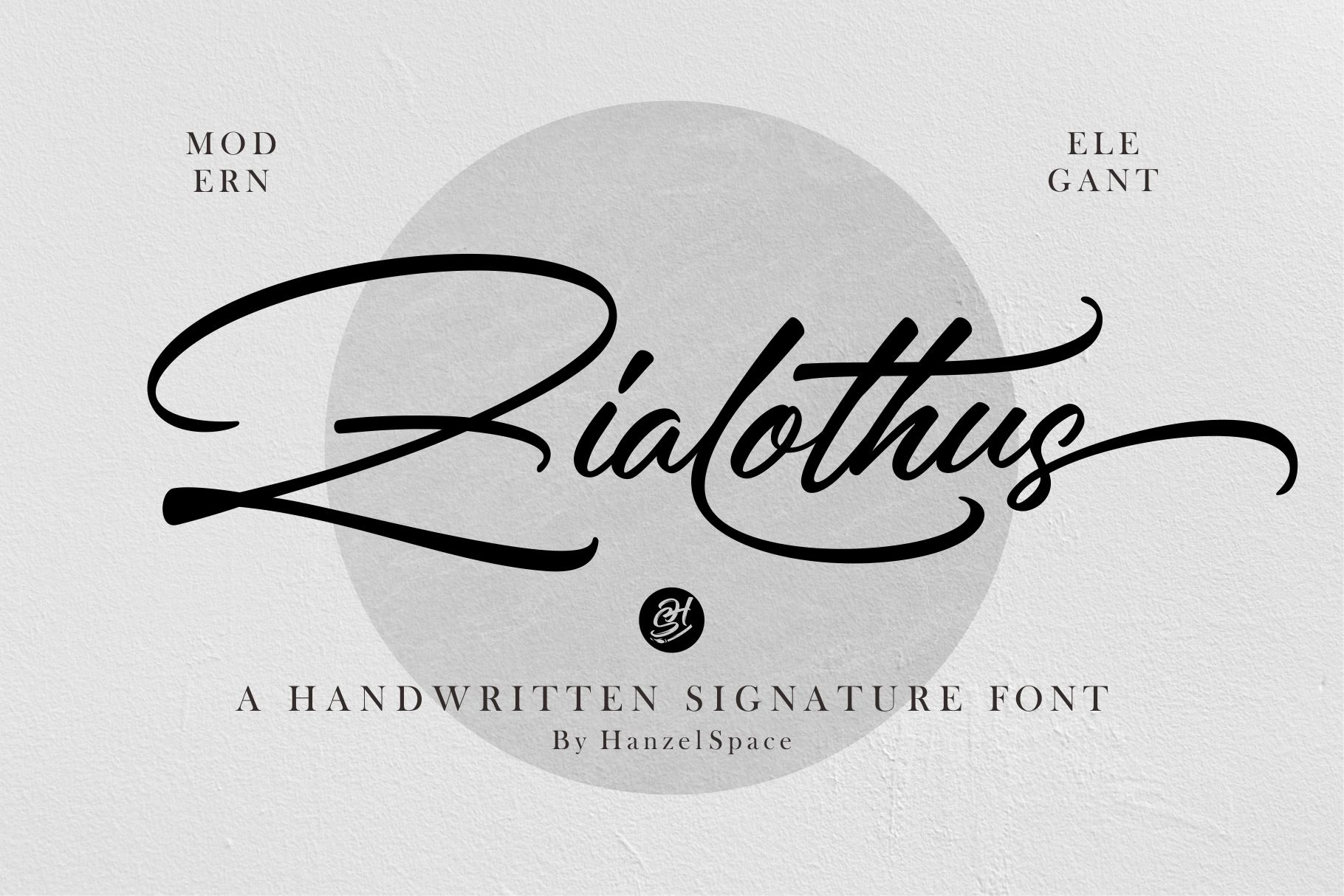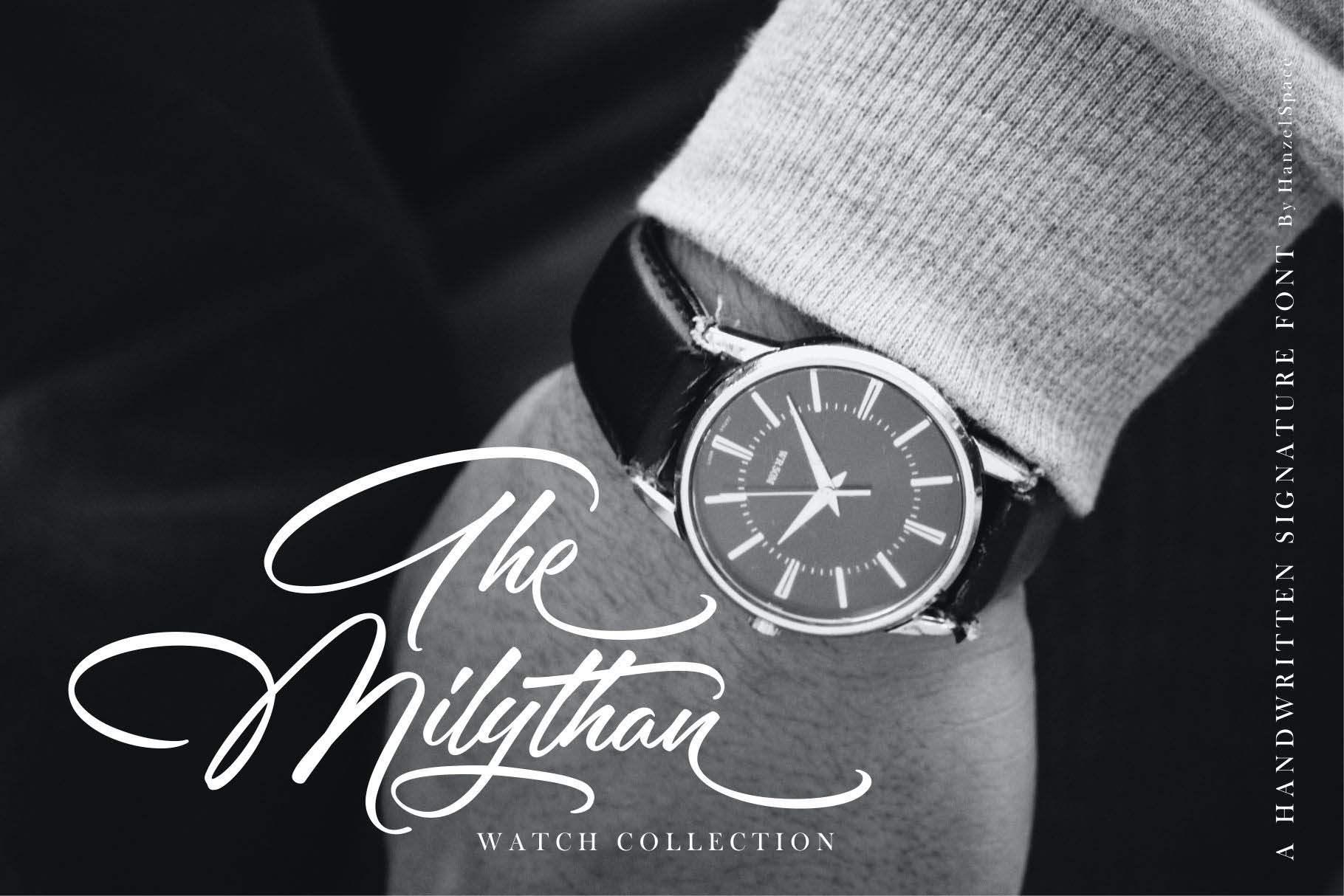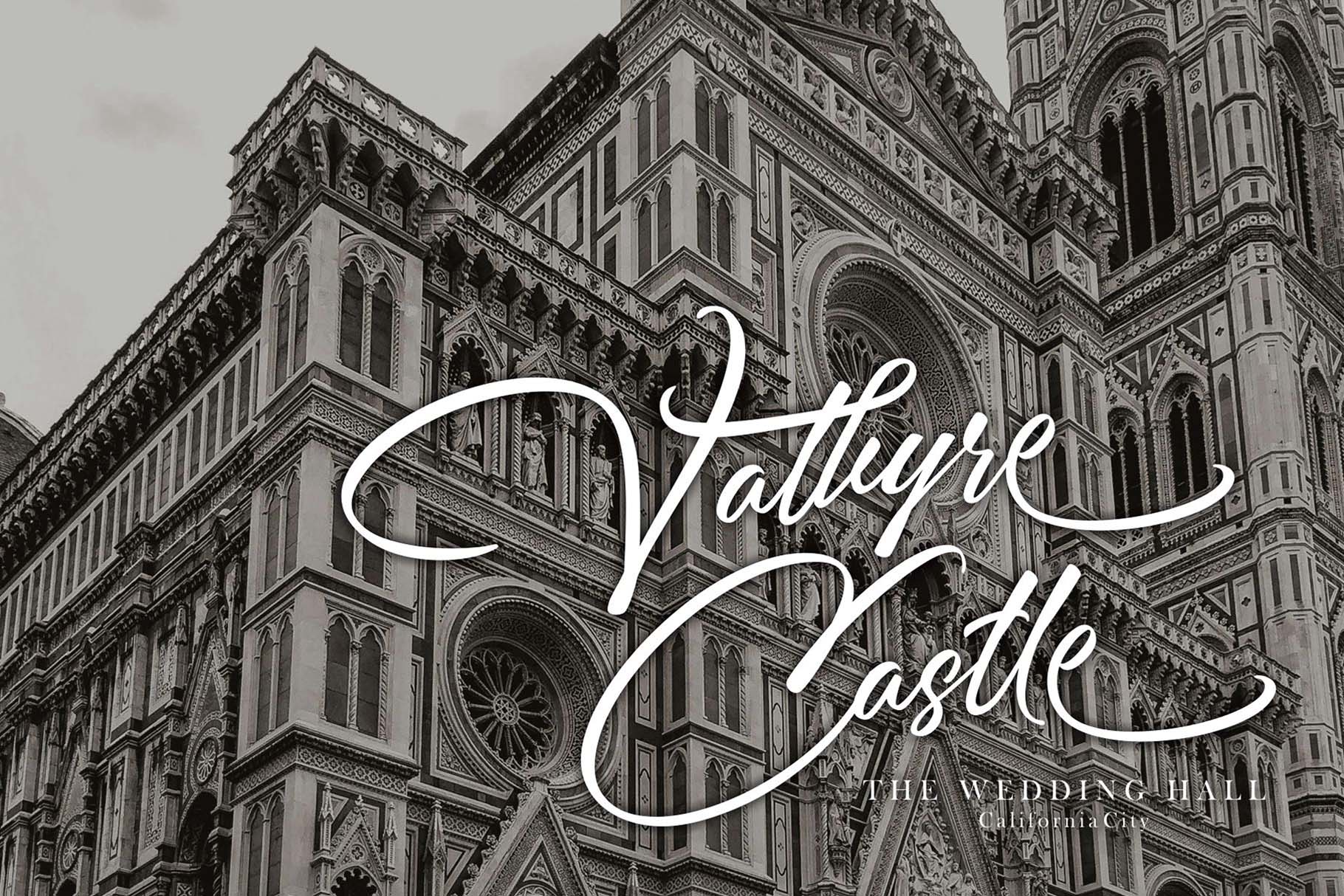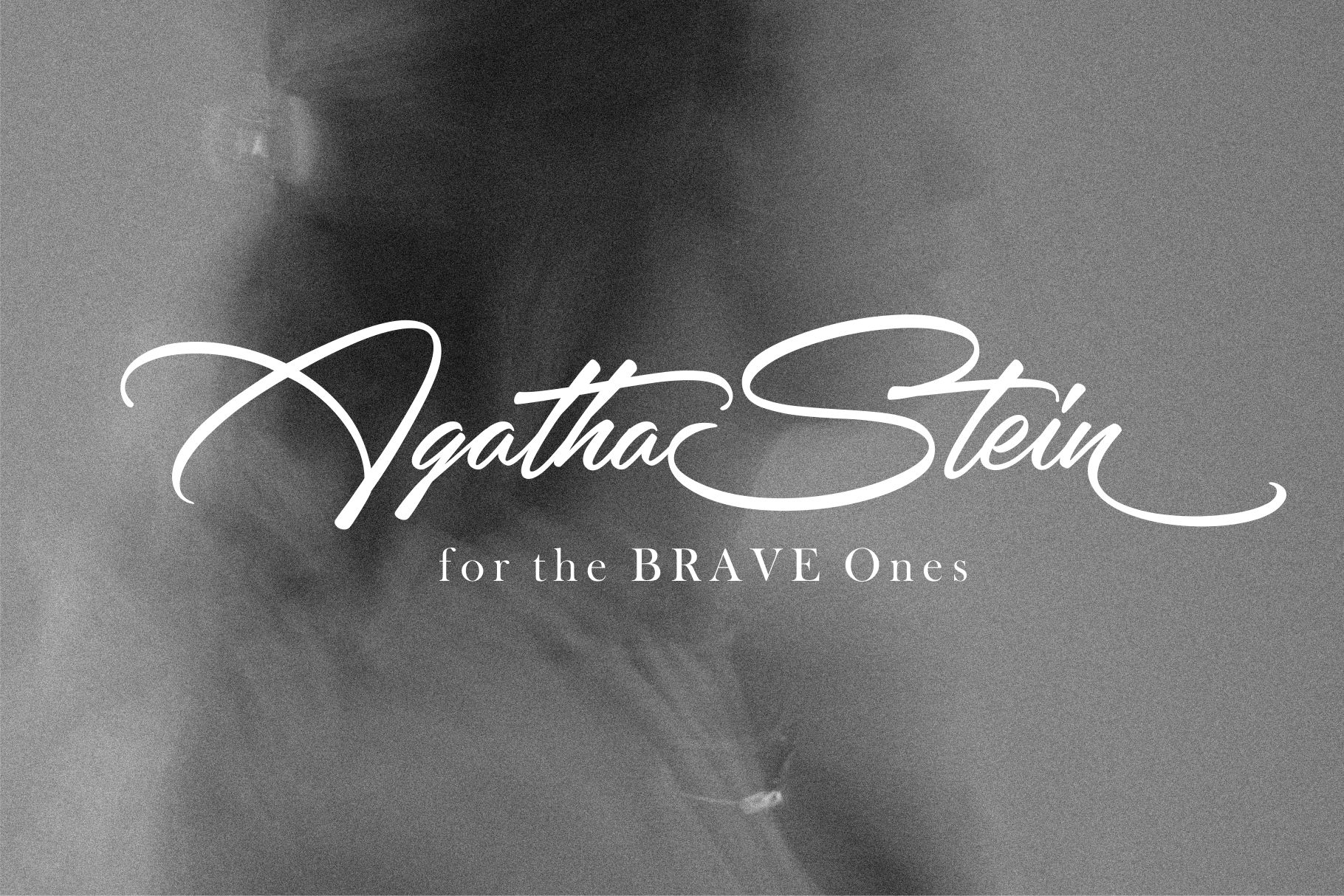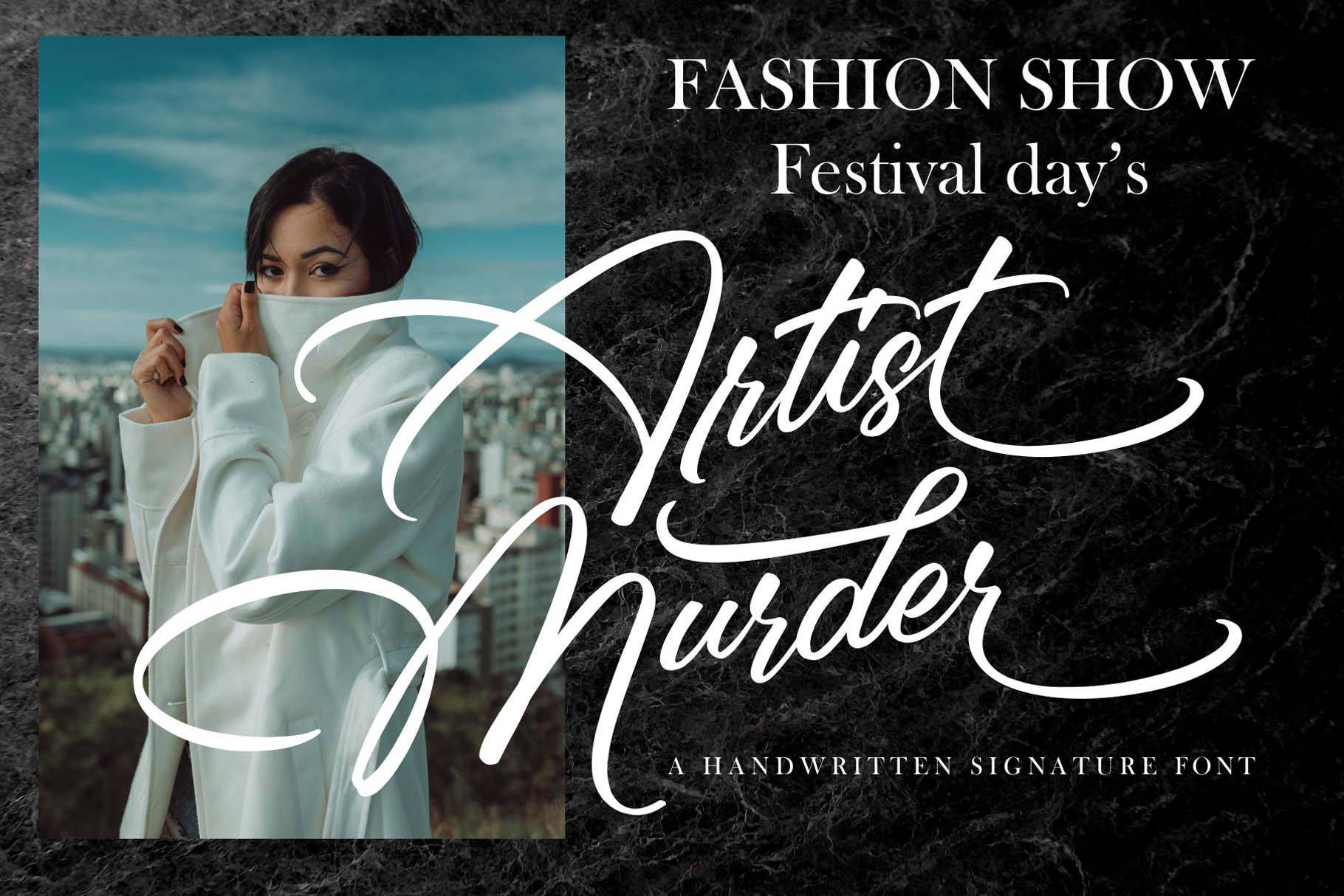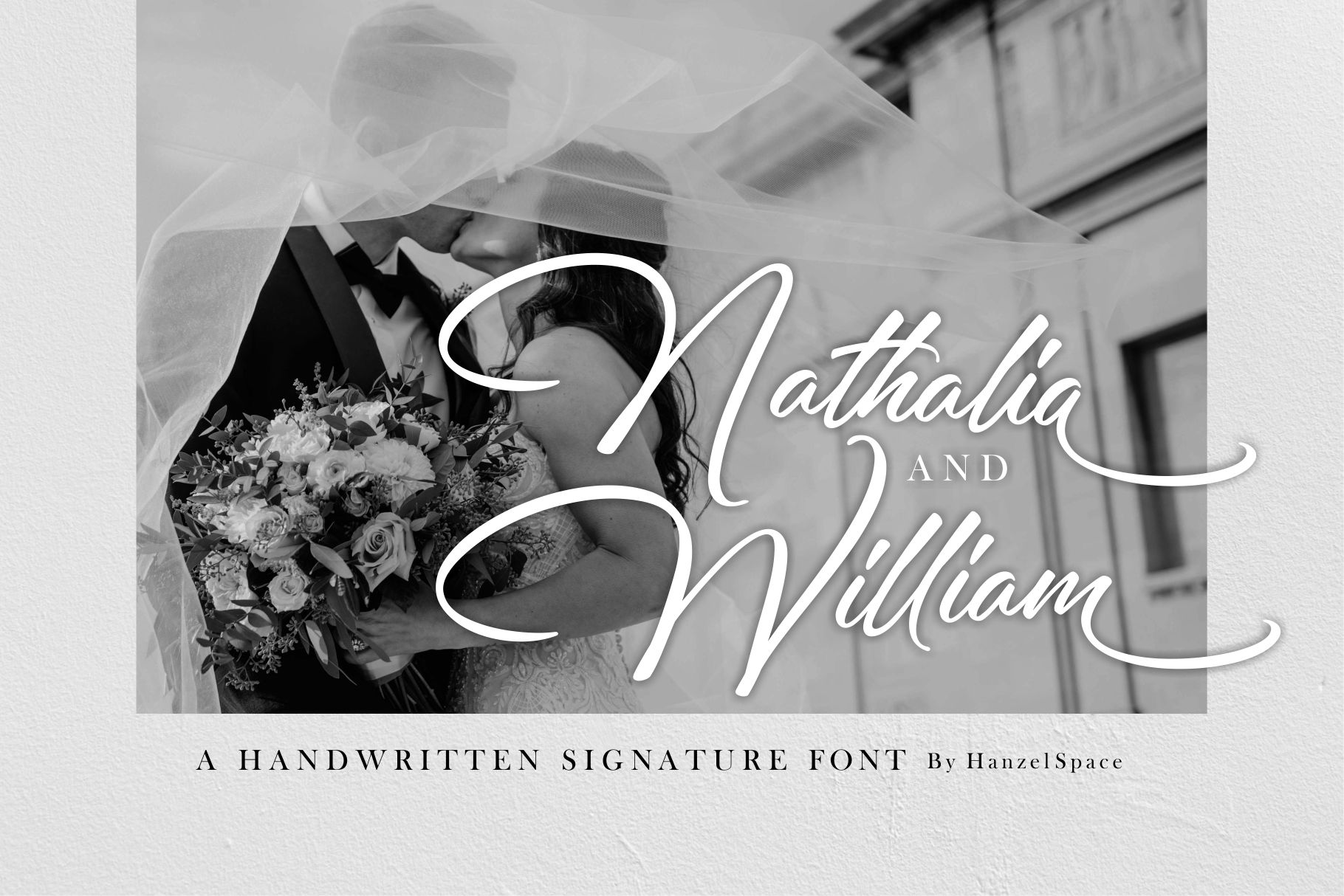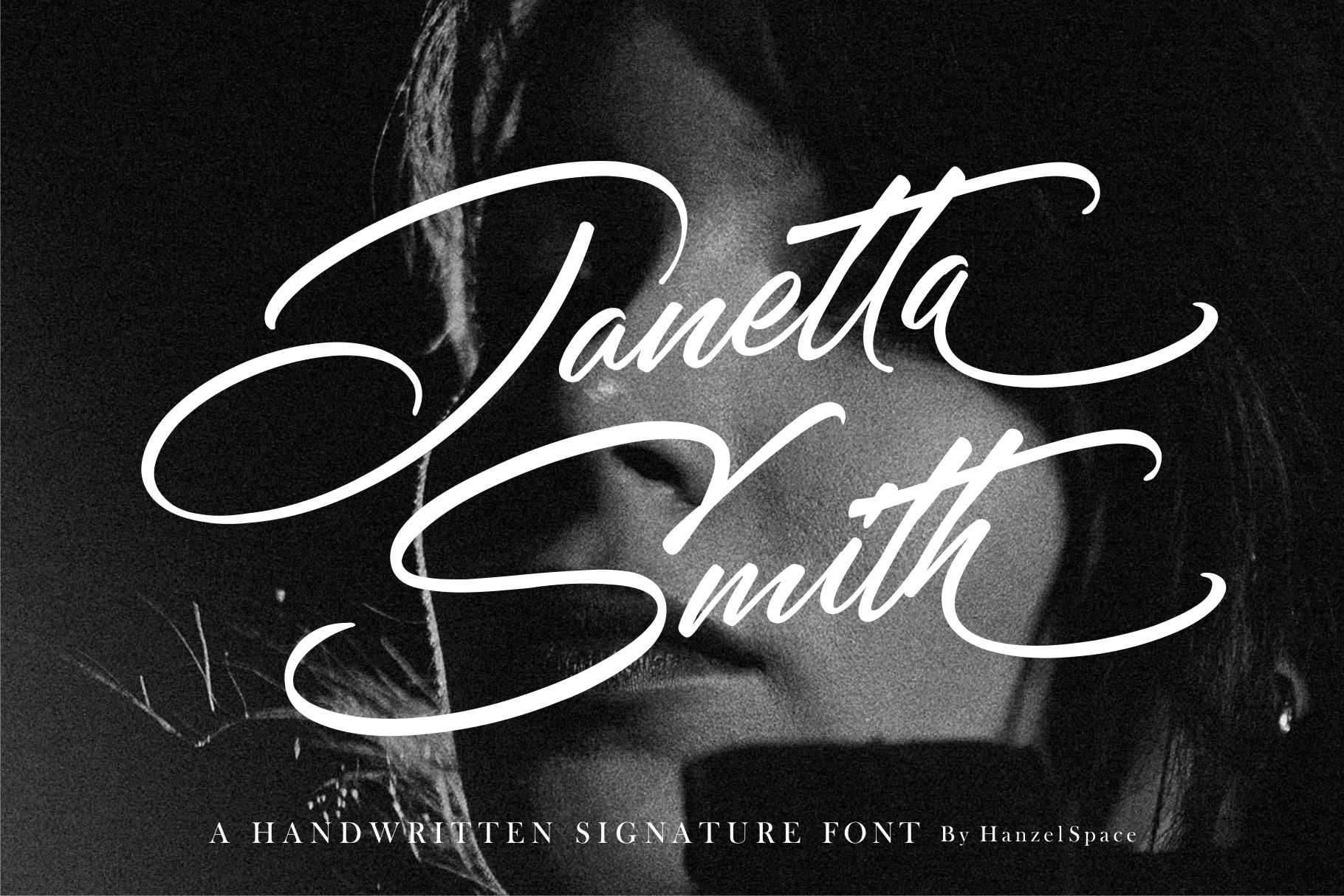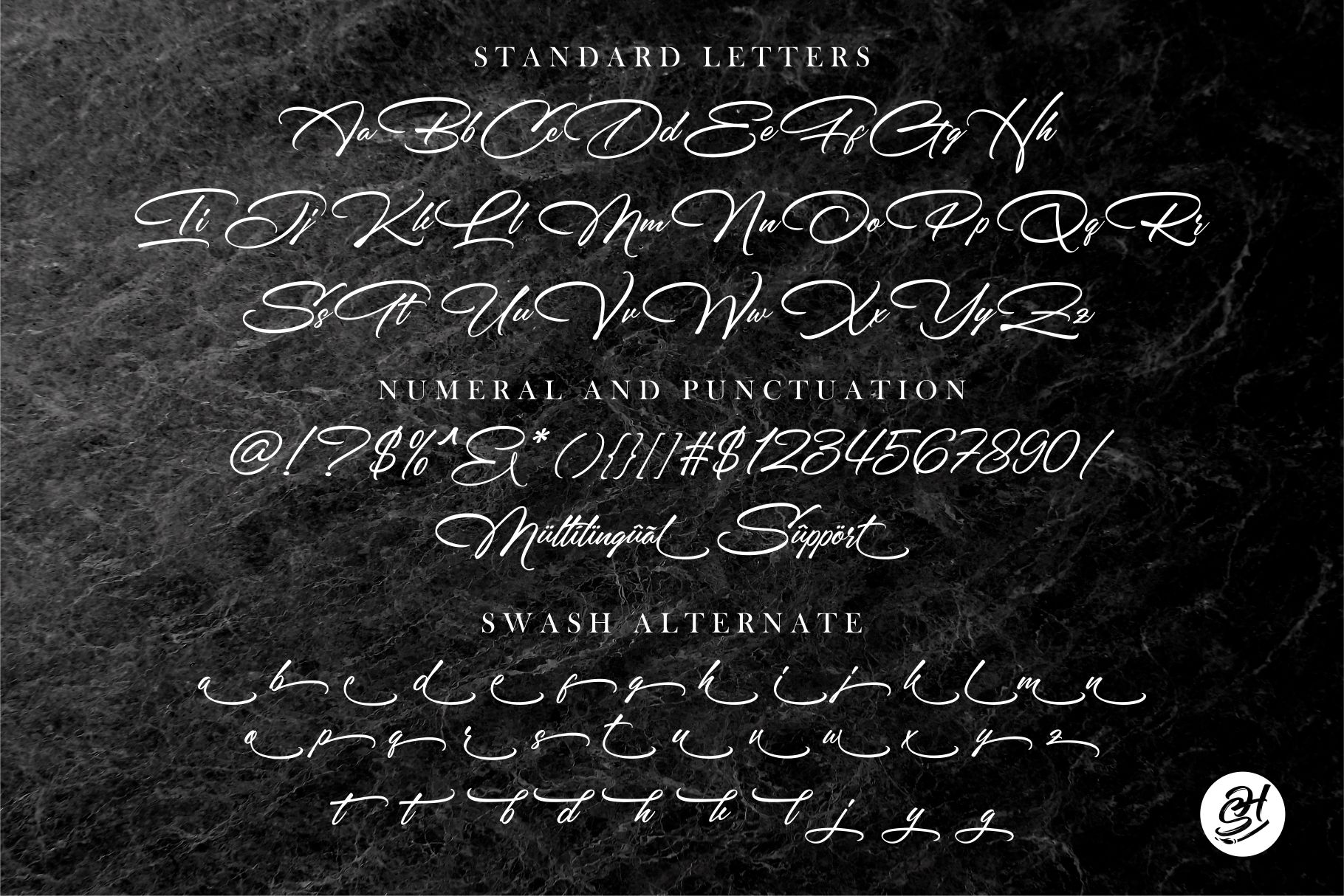
Zialothus – Handwritten Signature Font
A rather charming handwritten font, “Zialothus”, is here to brighten up your design work. This handwritten typeface equipped with alternate swashes is inspired by naturally made writing. With 26 swashes, your design will appear with the appropriate work. Whether you want to create a logo, quote, branding, card and this typeface is the right choice.
- Full Set of standard alphabet and punctuation
- Extra set of ending swashed lowercase
- Handwritten ligatures